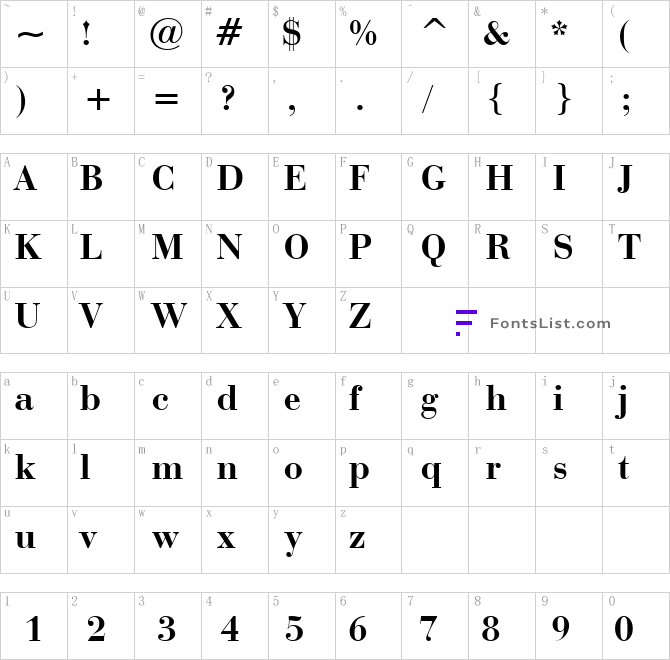
- Font Name:BauerBodni BT
- Subfamily:Bauer Bodoni Bold, Modern 405
- Full Name:Bauer Bodoni Bold BT
- PostScript:BauerBodoniBT-Bold
Bauer-Bodoni-Bold-BT-copy-1-.ttf is a very beautiful artistic font, Bauer-Bodoni-Bold-BT-copy-1-.ttf is widely used in the design and printing of various books and pictures,Bauer-Bodoni-Bold-BT-copy-1-.ttf has a strong visual impact,Bauer-Bodoni-Bold-BT-copy-1-.ttf is a commonly used font in newspapers, magazines and books, and is used in posters, e-commerce Poster design, store design, logo design, font design and other fields.Bauer-Bodoni-Bold-BT-copy-1-.